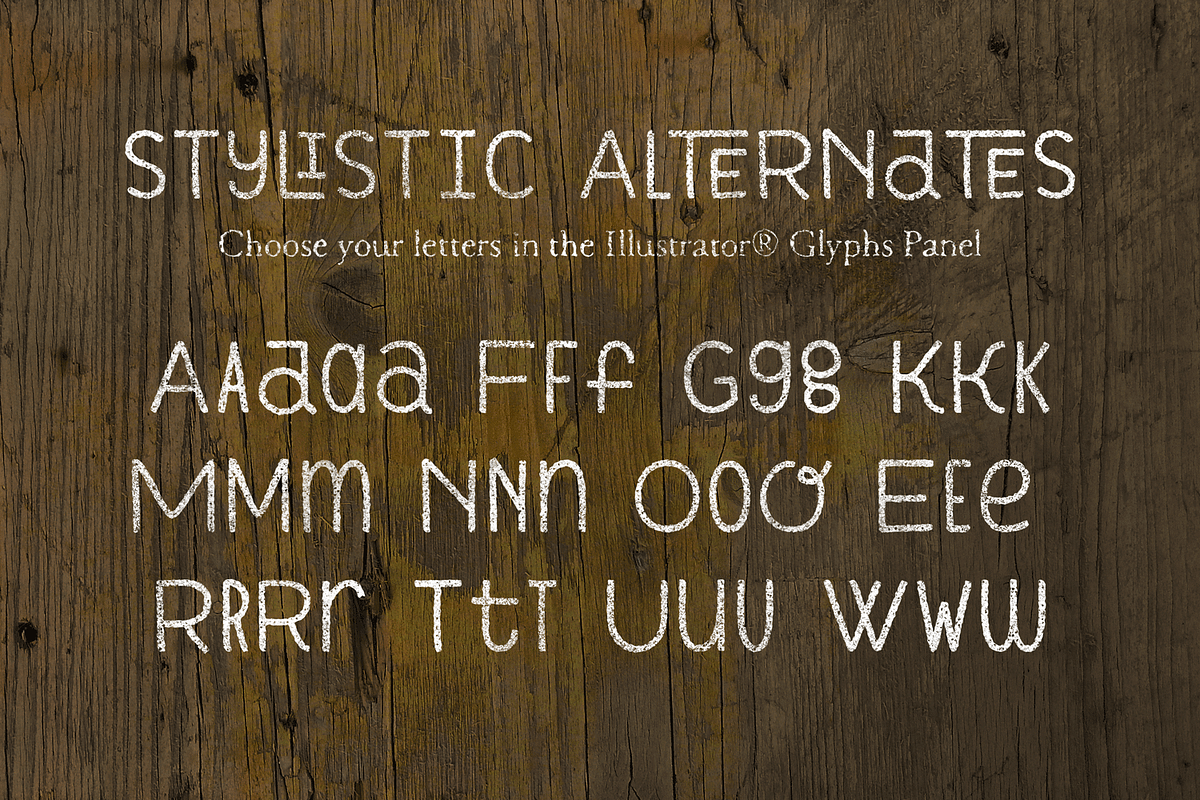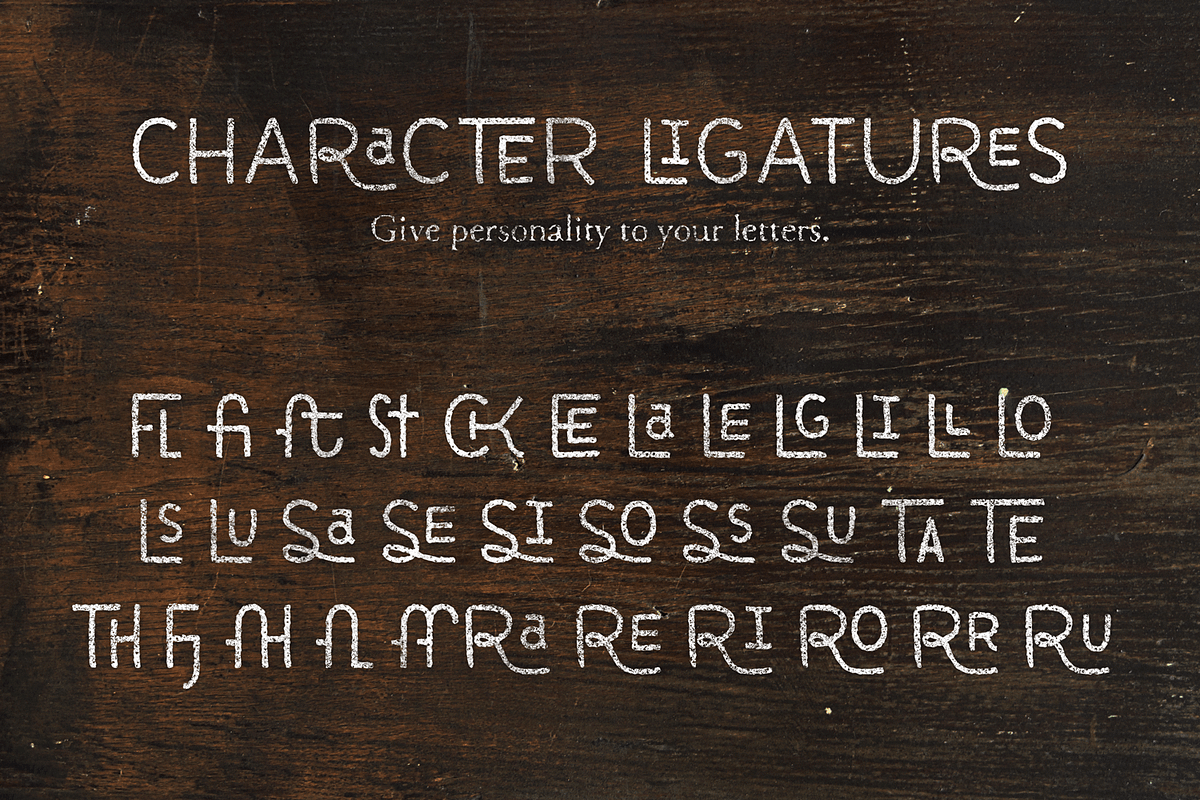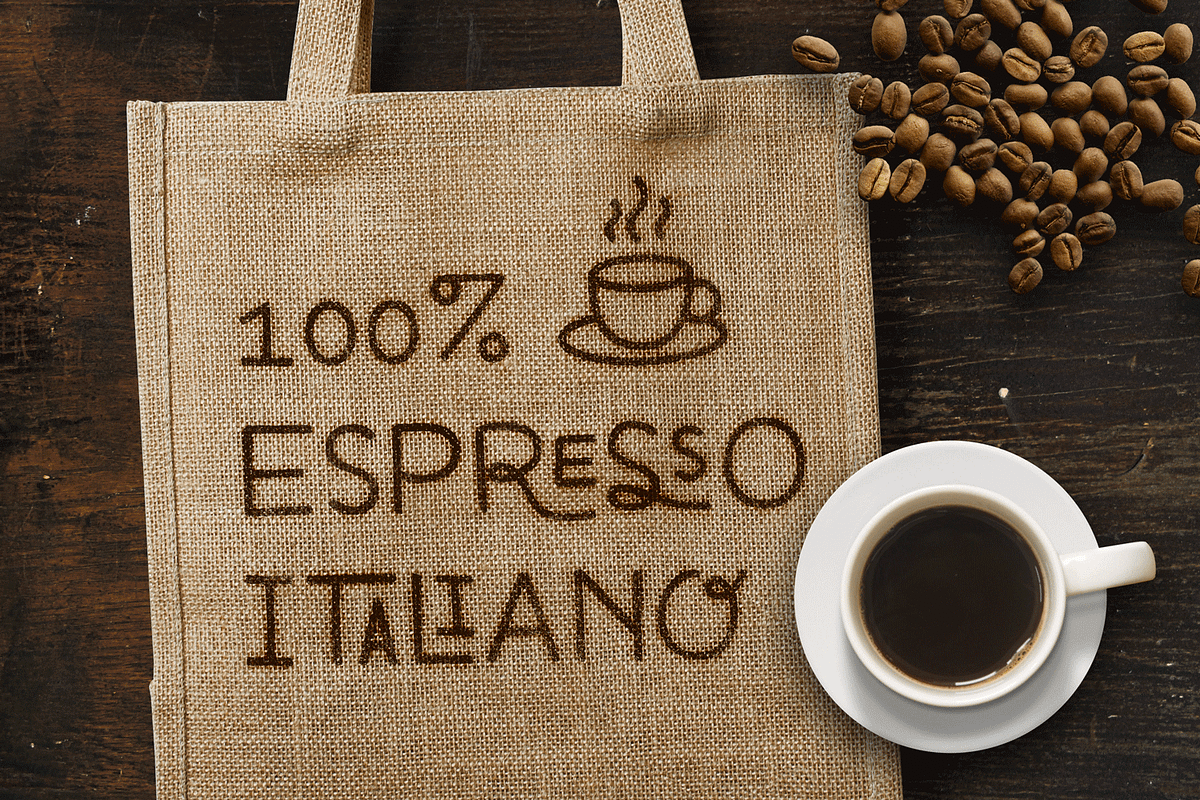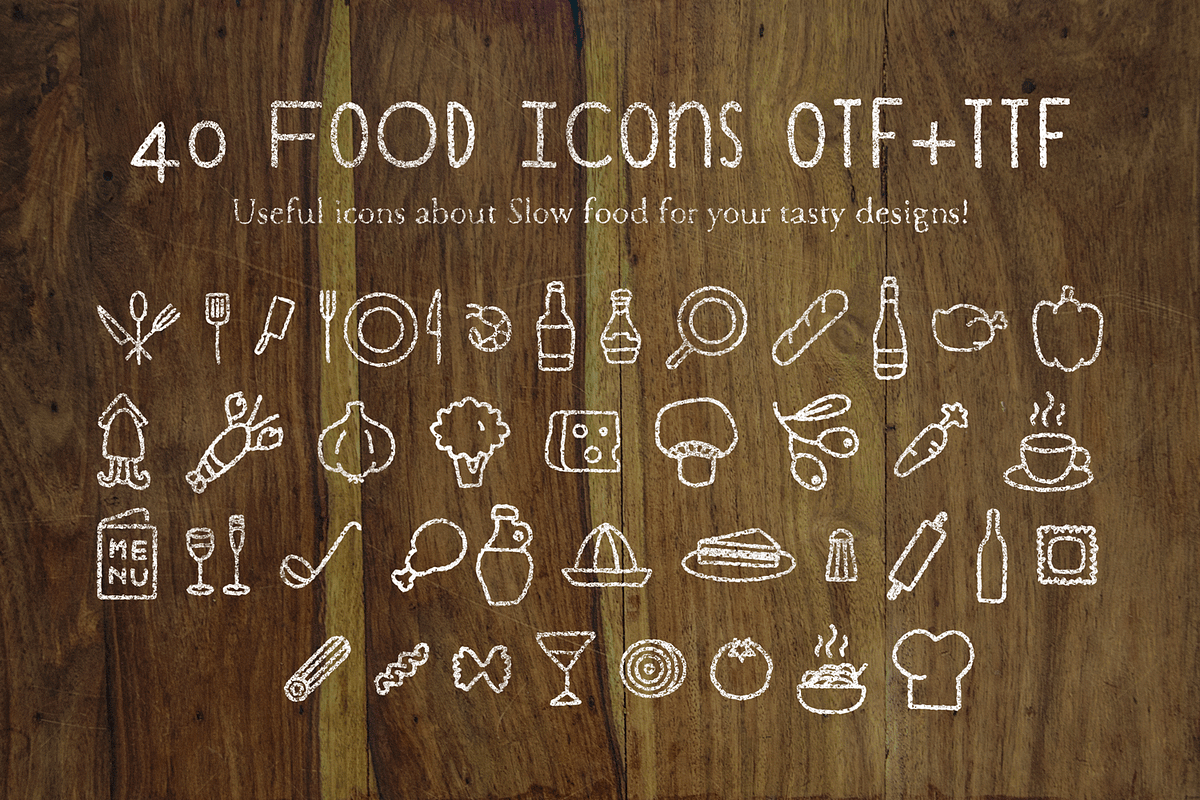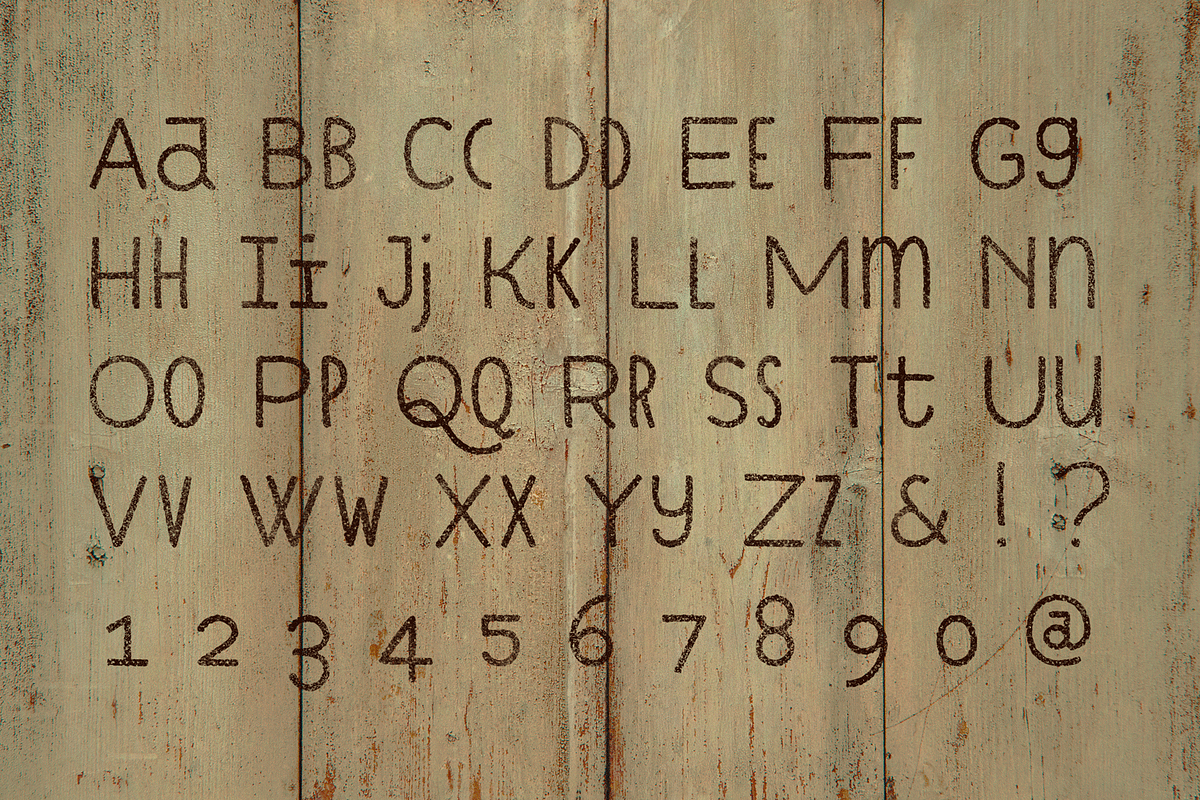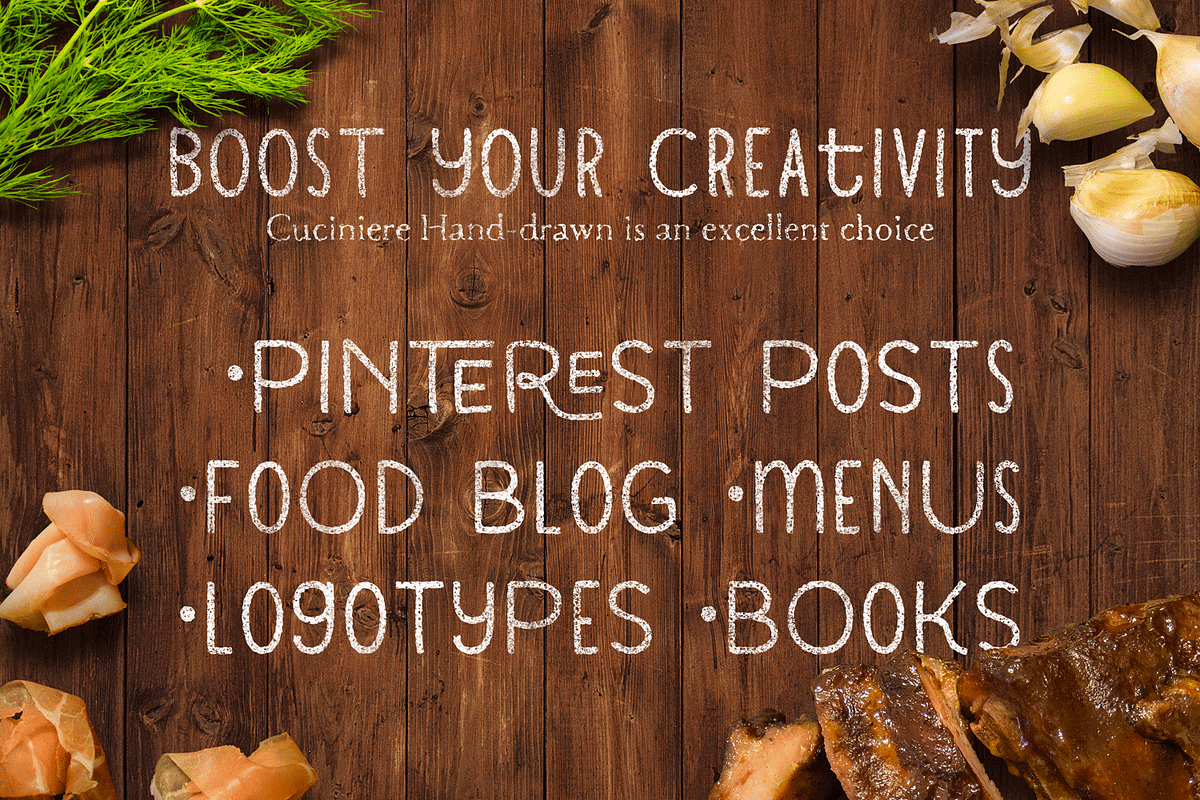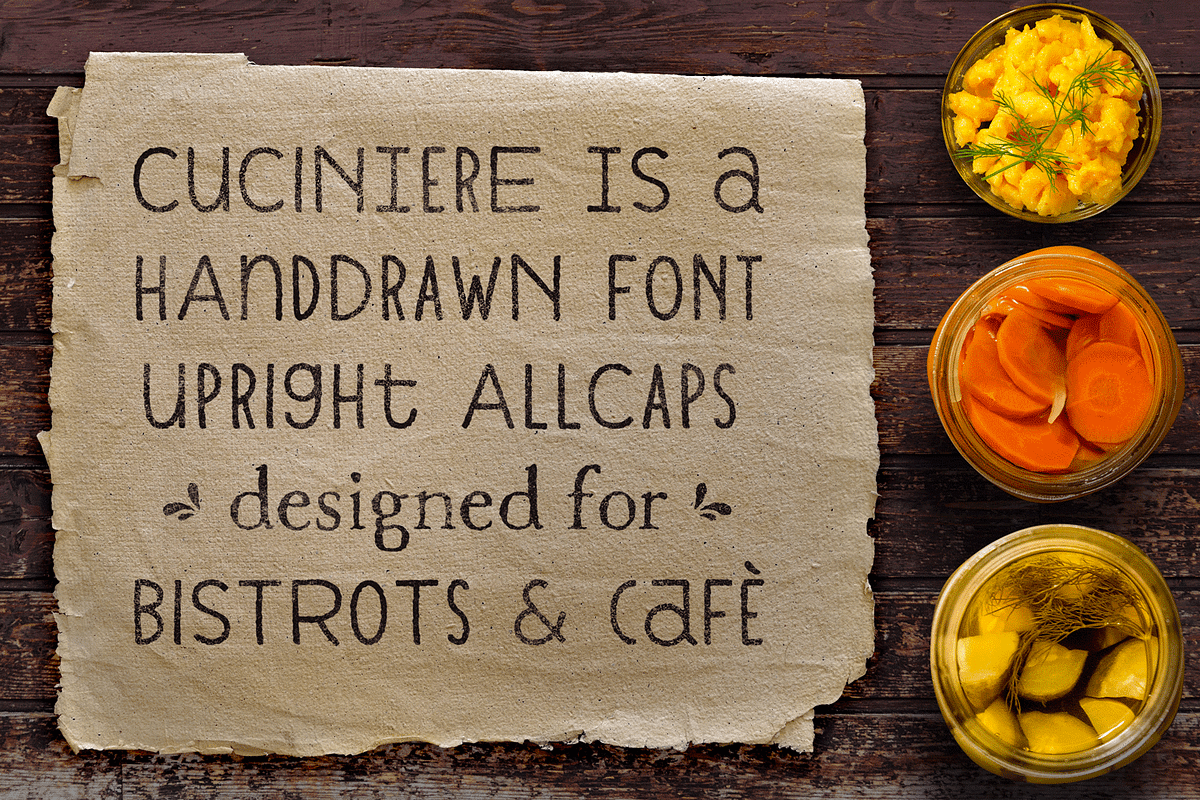
Cuciniere Font + 40 Icons (Handmade)
Cuciniere Font + 40 Icons (Handmade) by Hederae Type Foundry is a font selected for branding, posters, packaging, typography.
- It is a collection of all-caps characters mixed with some lowercase ones.
- The main features are the high customization with the stylistic alternates (Wide, Condensed and Lowercase) and type ligatures, to write word
Cuciniere Font + 40 Icons (Handmade) by Hederae Type Foundry fits naturally into Branding, posters, packaging, typography.